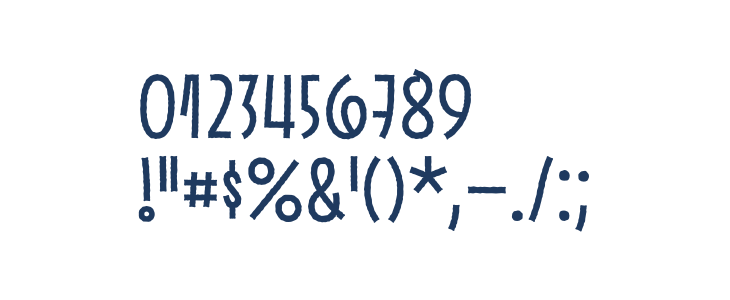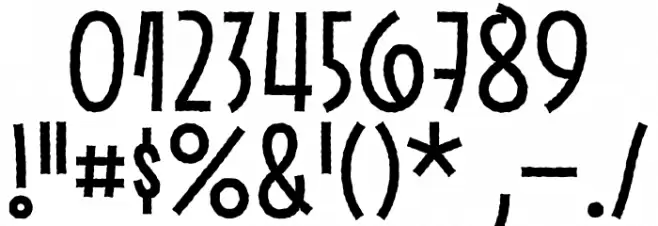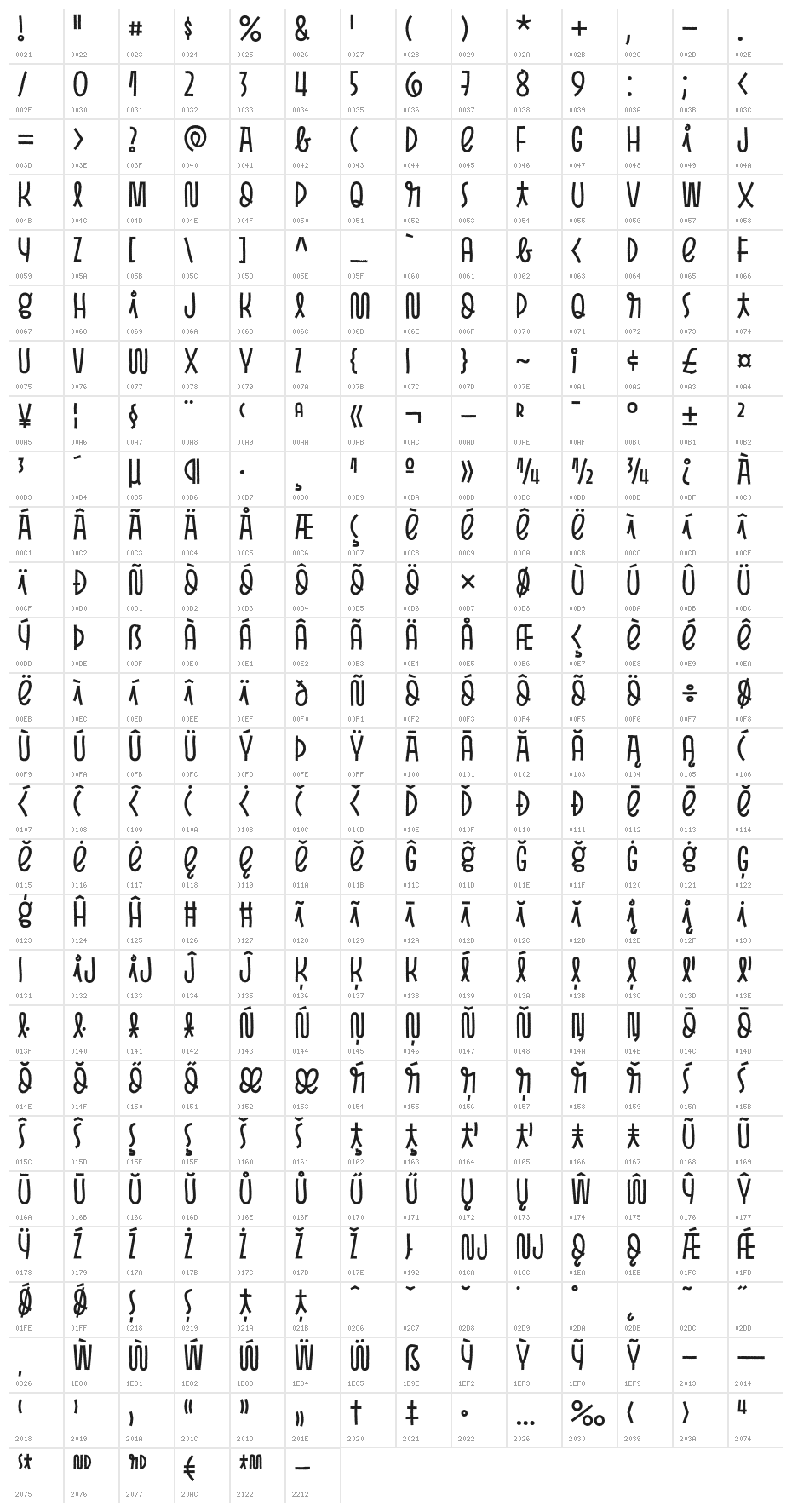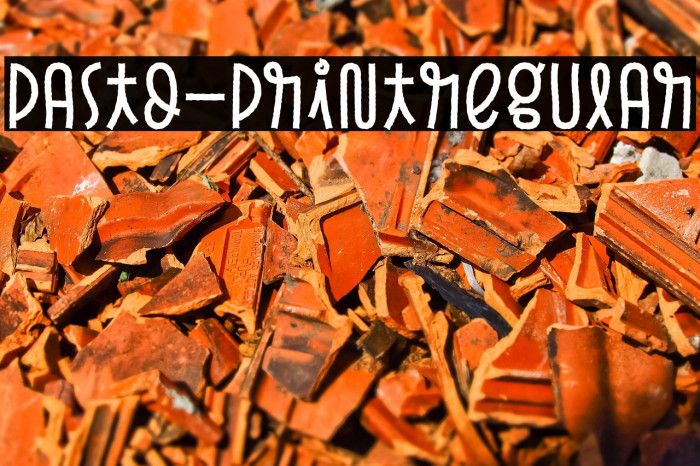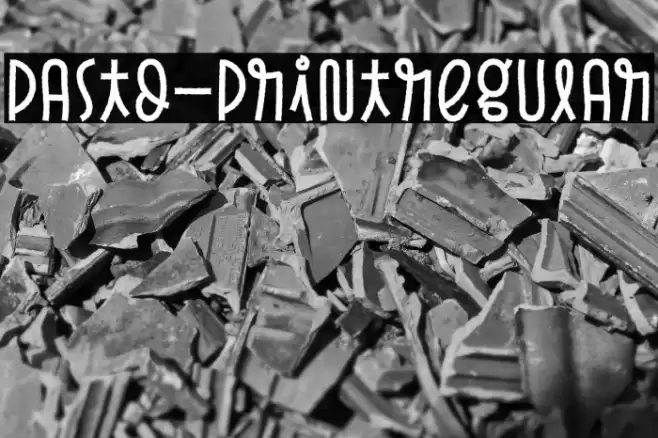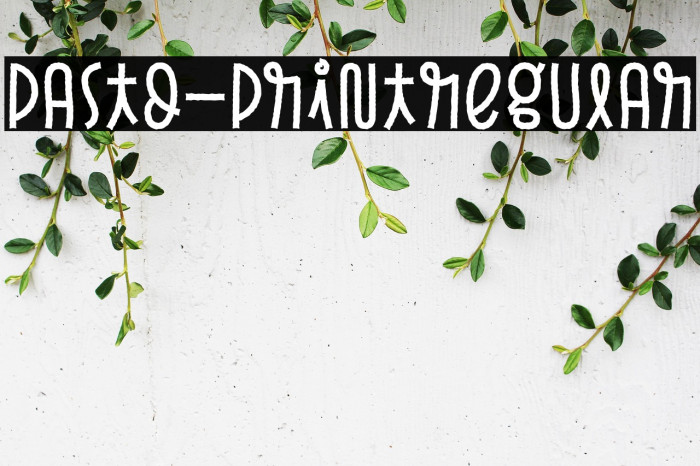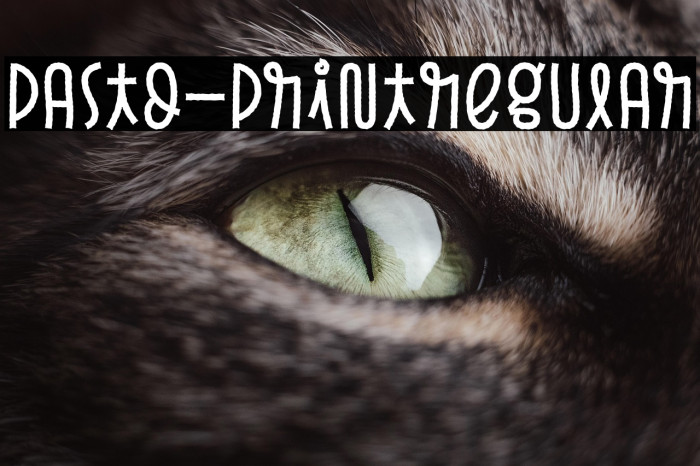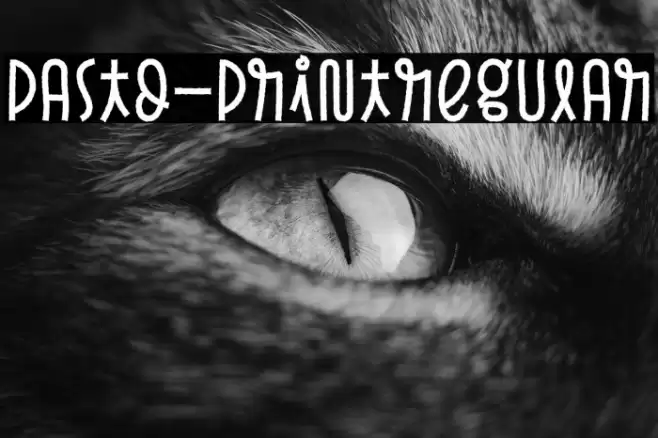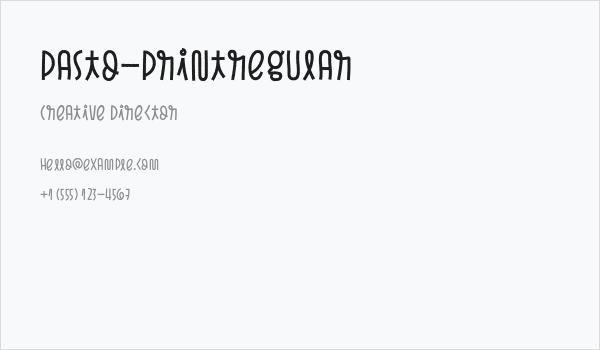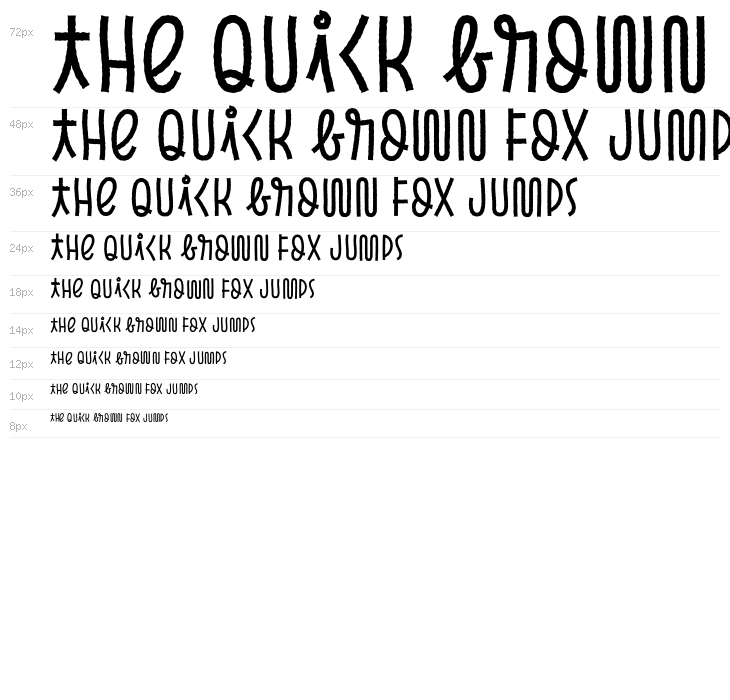
Pasto-PrintRegular Font
Pasto-PrintRegular Description
This font features a playful and quirky design, characterized by its unique and irregular letterforms. The uppercase and lowercase letters exhibit a hand-drawn quality, with varying stroke thicknesses and whimsical curves. The characters are slightly condensed, giving the font a compact appearance. The numbers and special characters maintain the same playful style, adding to the font's overall charm. This font's distinctive style makes it suitable for creative and artistic projects, where a touch of personality is desired. Its decorative nature is ideal for headlines, posters, and branding materials that aim to stand out.